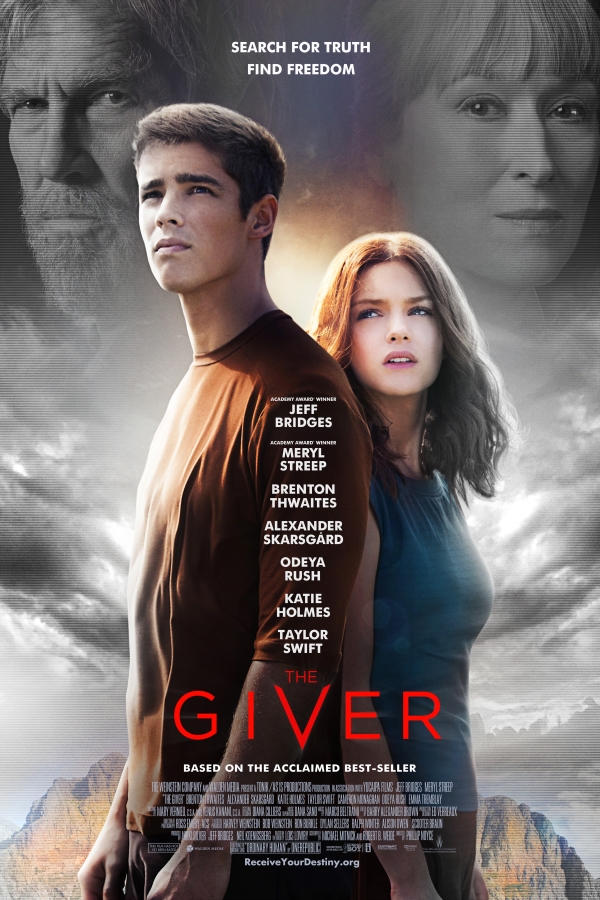
The Giver Font
Fonts in UseThe Giver is a 2014 science fiction film based on the 1993 novel of the same name by Lois Lowry. It follows a young boy named Jonas who is chosen to be the Receiver of Memory in a dystopian society where emotions and memories are suppressed.
The movie title in the poster is most likely set in Gotham Book, a geometric sans-serif font that draws inspiration from the signage of post-war buildings and hand-painted lettering commonly found throughout New York City.